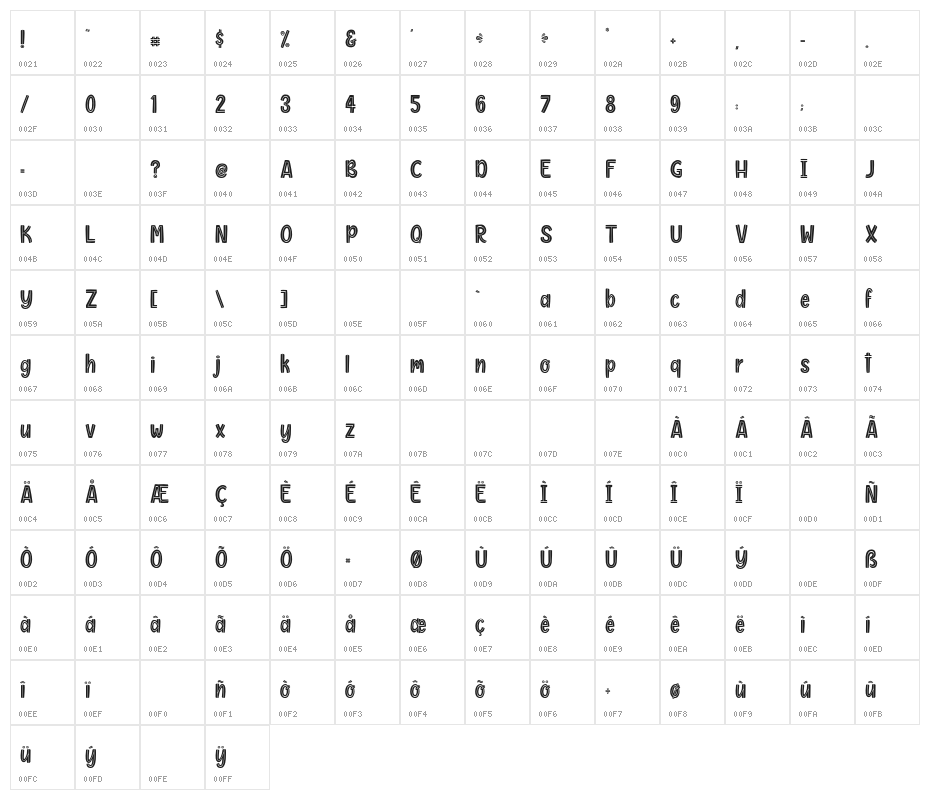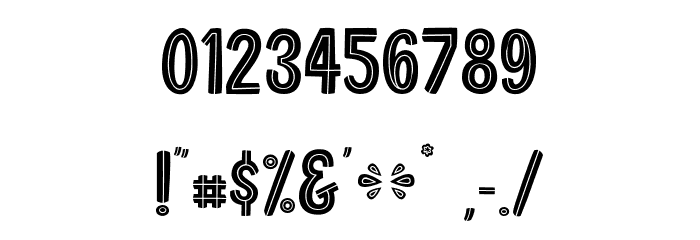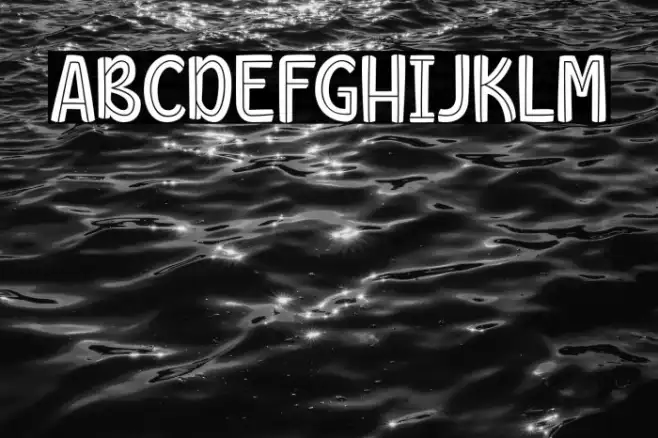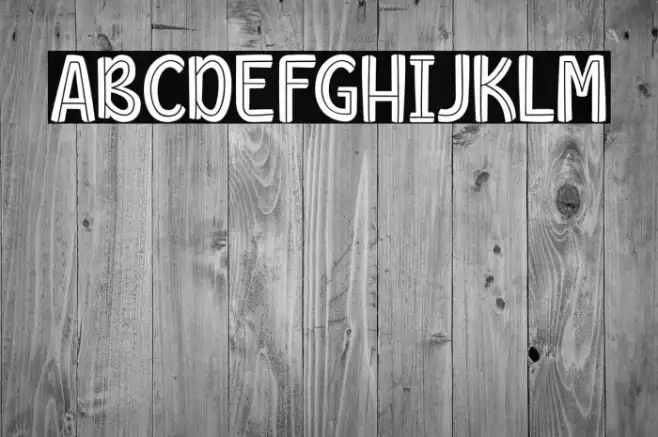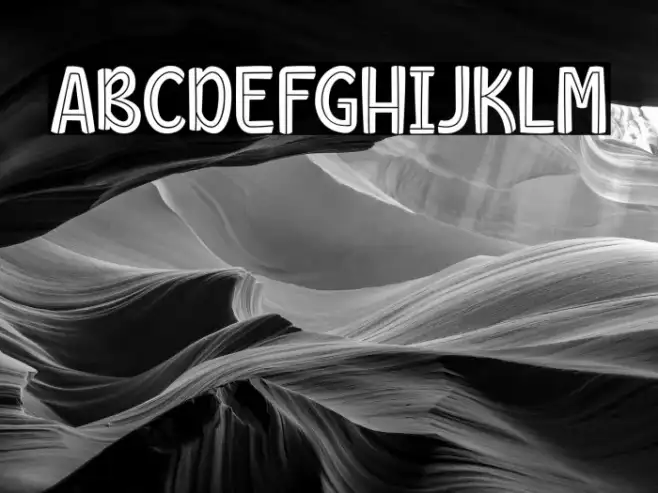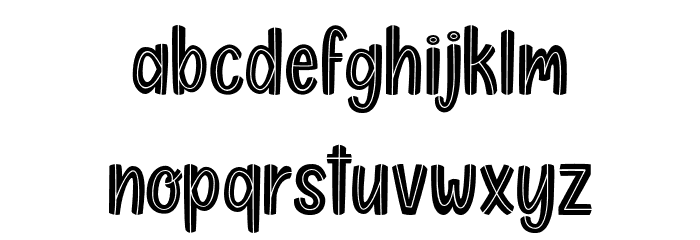
MonichaPersonalUse Font
MonichaPersonalUse Description
This font features a playful and bold design with a distinct outline that gives each character a three-dimensional appearance. The uppercase and lowercase letters maintain a consistent style, with rounded edges and a slightly condensed form. The numerals and special characters are designed to match the playful aesthetic, making them stand out with their thick outlines. The overall look is both modern and whimsical, suitable for projects that require a fun and engaging typeface.
| Overall Style | Modern, Whimsical |
| Proposed Projects | Ideal for children's books, playful branding, posters, and creative invitations. |